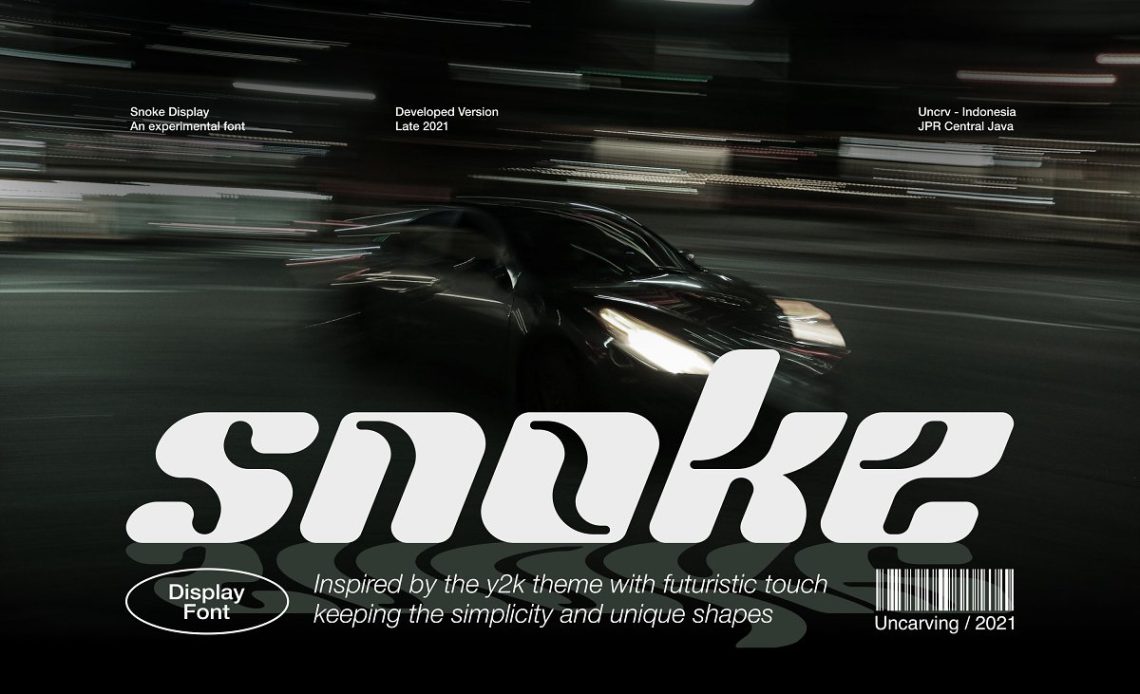
Are you looking for the perfect font to elevate your brand's display? Look no further than Snoke - the ultimate display font designed for excellence.
Crafted by the skilled designers at Uncarving, Snoke is inspired by the Y2K theme with a futuristic touch. The font family's simplicity and unique shapes make it stand out from the rest, ensuring that your brand's message is communicated clearly and effectively.
Snoke is the best font for display, and it's no surprise why. The font's bold and striking appearance captures the attention of any viewer, leaving a lasting impression. Whether you're creating a logo, designing a website, or developing marketing materials, Snoke is the perfect choice to help your brand stand out in a crowded marketplace.